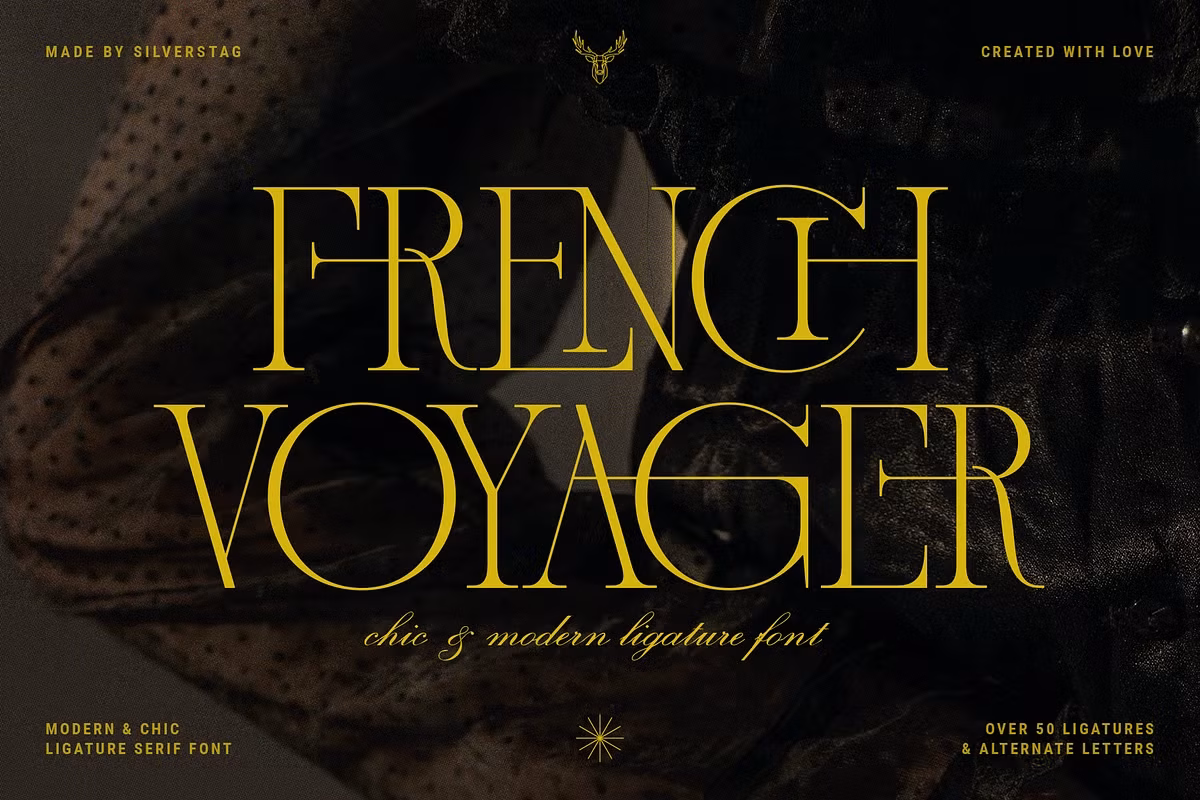
French Voyager - Chic Ligature Serif Free Download is an elegant and sophisticated typeface that blends traditional serif styling with stylish ligatures for a modern twist. Its graceful curves, refined details, and unique letter connections make it perfect for high-end branding, luxury product packaging, editorial designs, and upscale event invitations.
This font adds a touch of class and refinement to any project, capturing the essence of chic European design. Whether you’re designing for fashion, luxury brands, or romantic wedding themes, French Voyager offers a beautiful, timeless aesthetic.